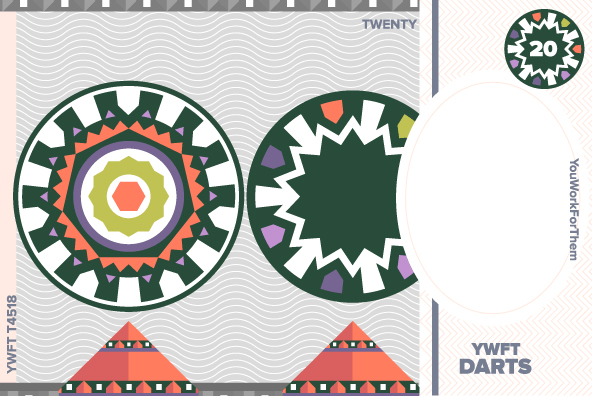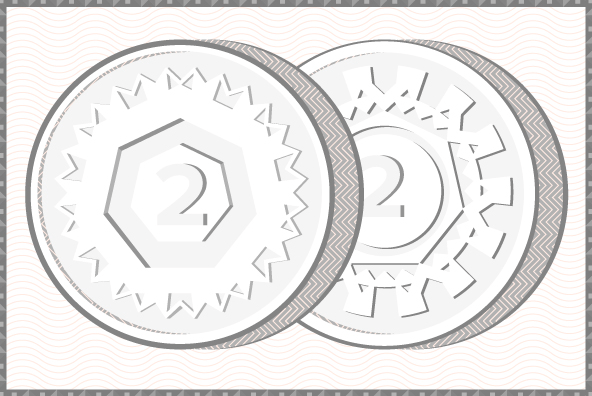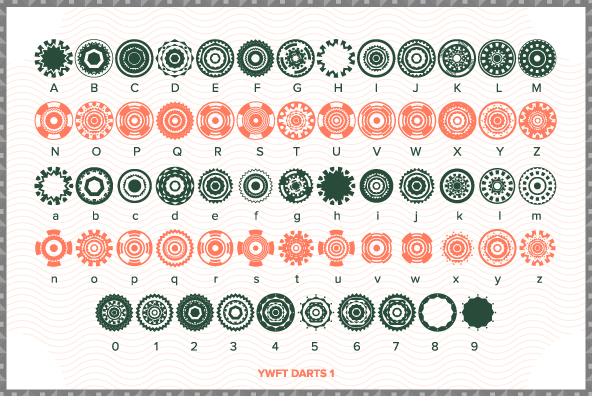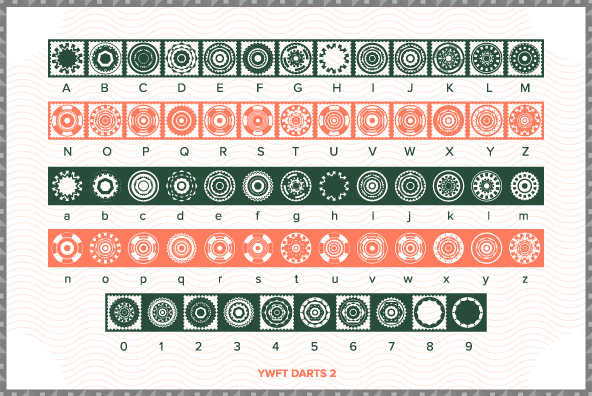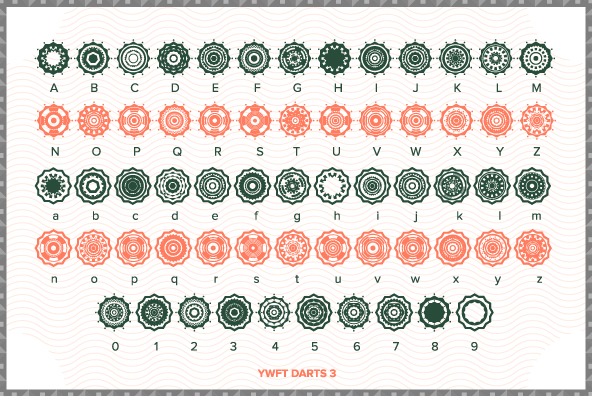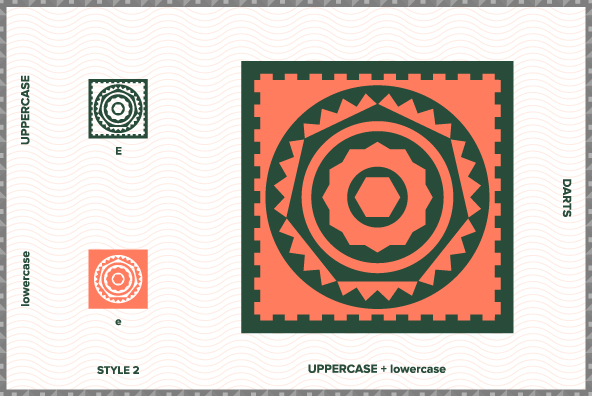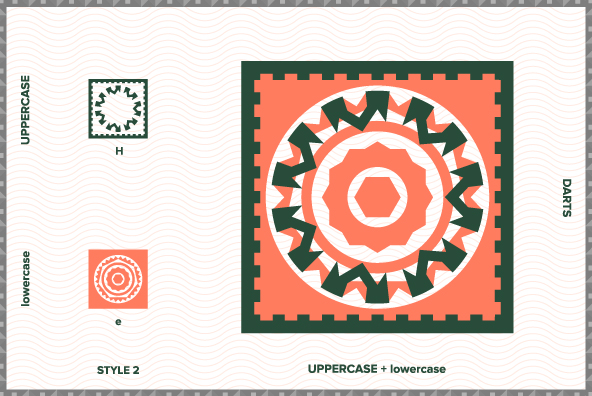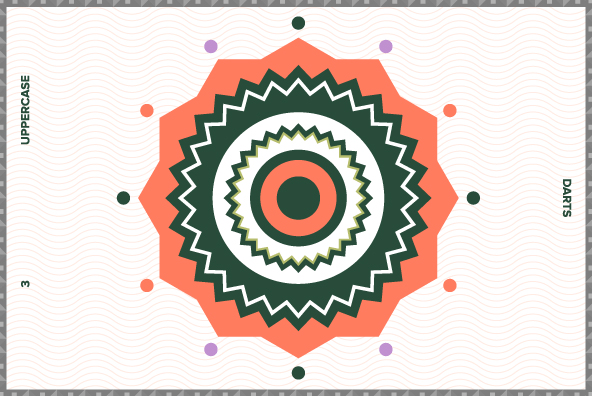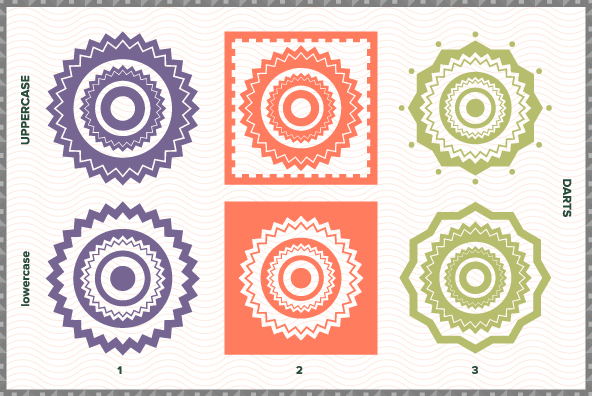
YWFT Darts
YWFT Darts is less about the beloved game, and more about a bunch of paper currency designers having lunch at an Aztec restaurant. These circular symbols would be equally at home on a Navajo tapestry as they would on a franc or a gilder, and with three separate styles to choose from, it's a steal at any exchange rate. Cha ching.